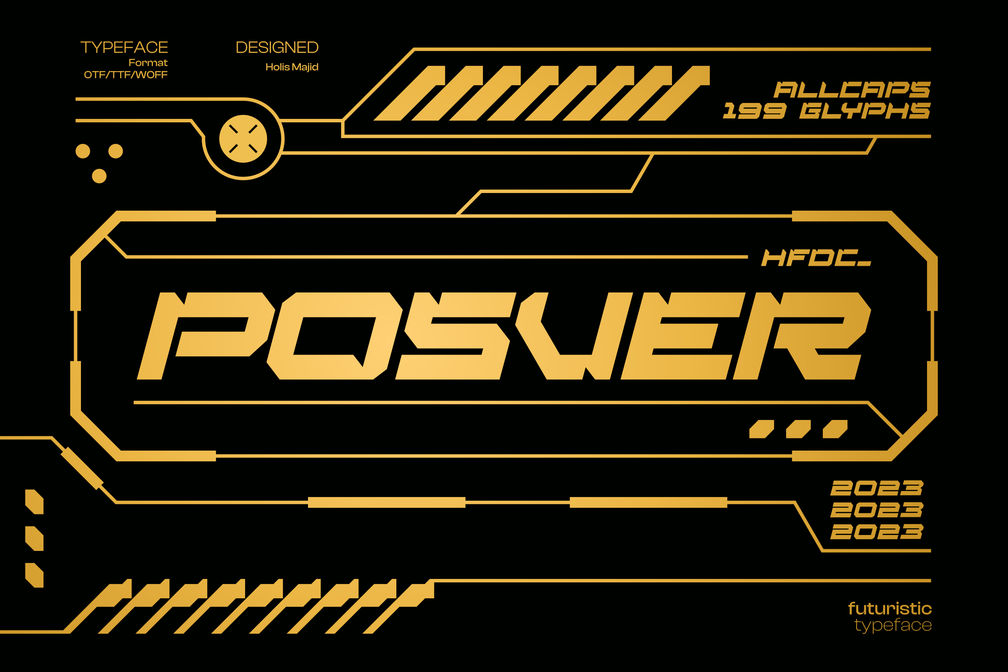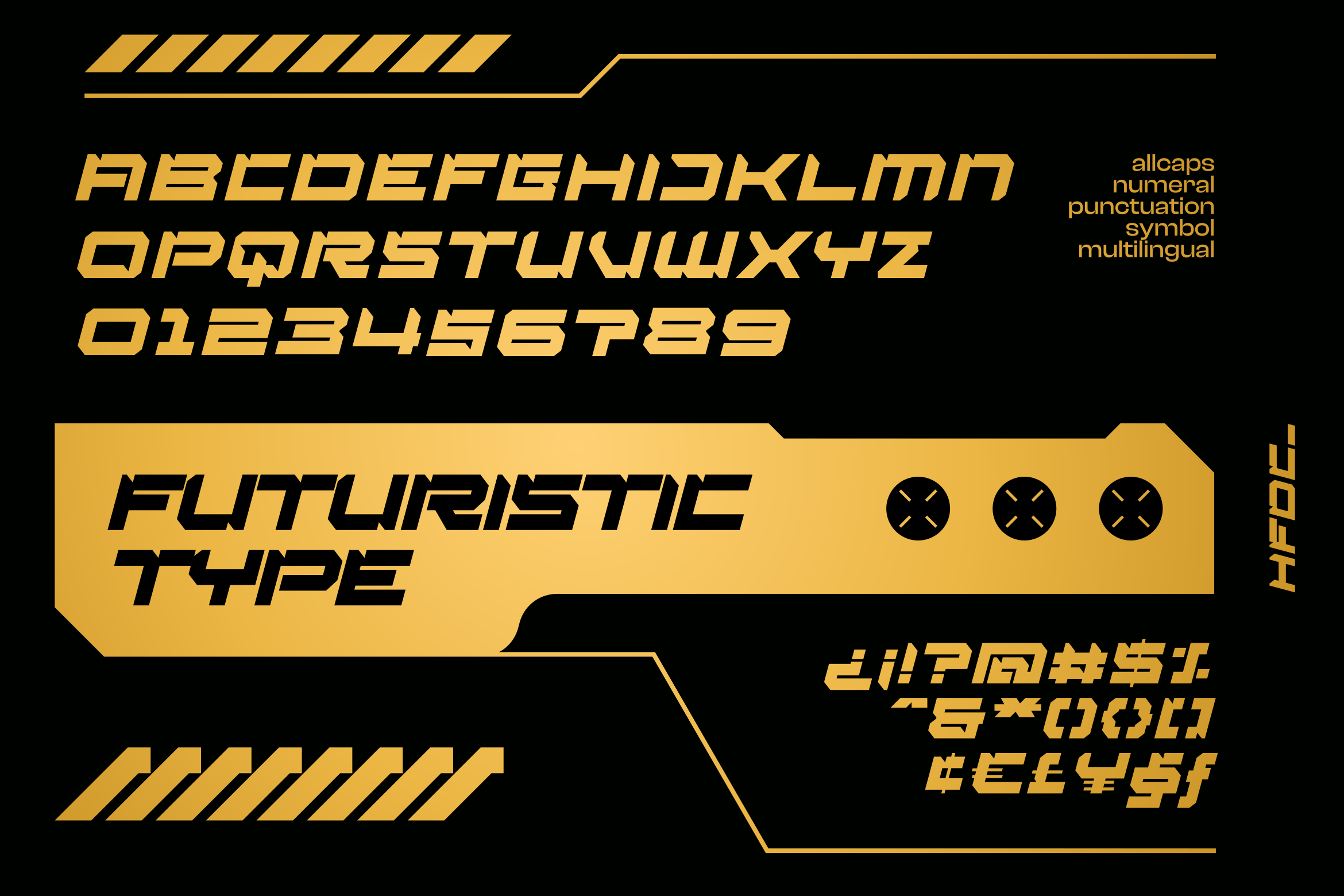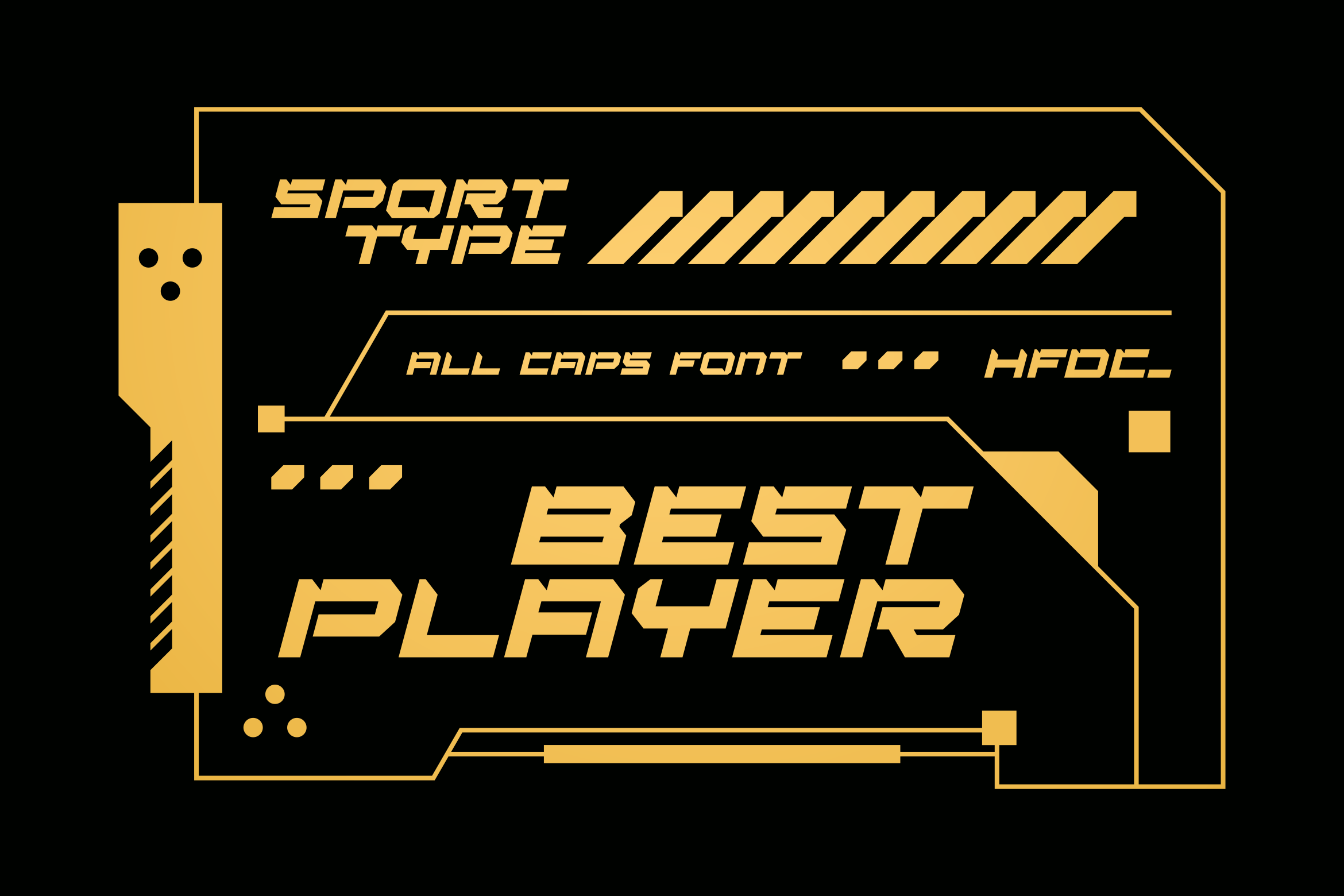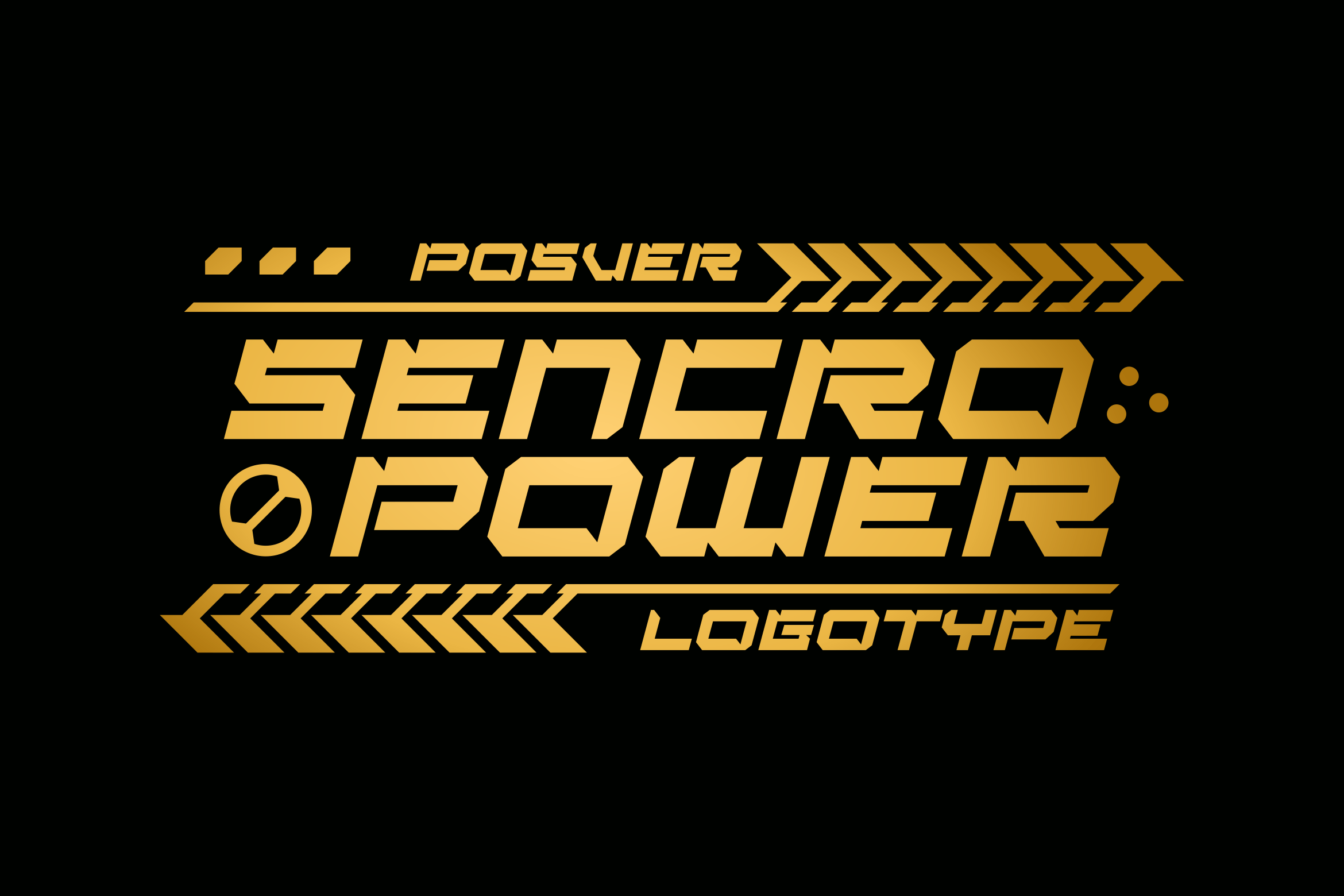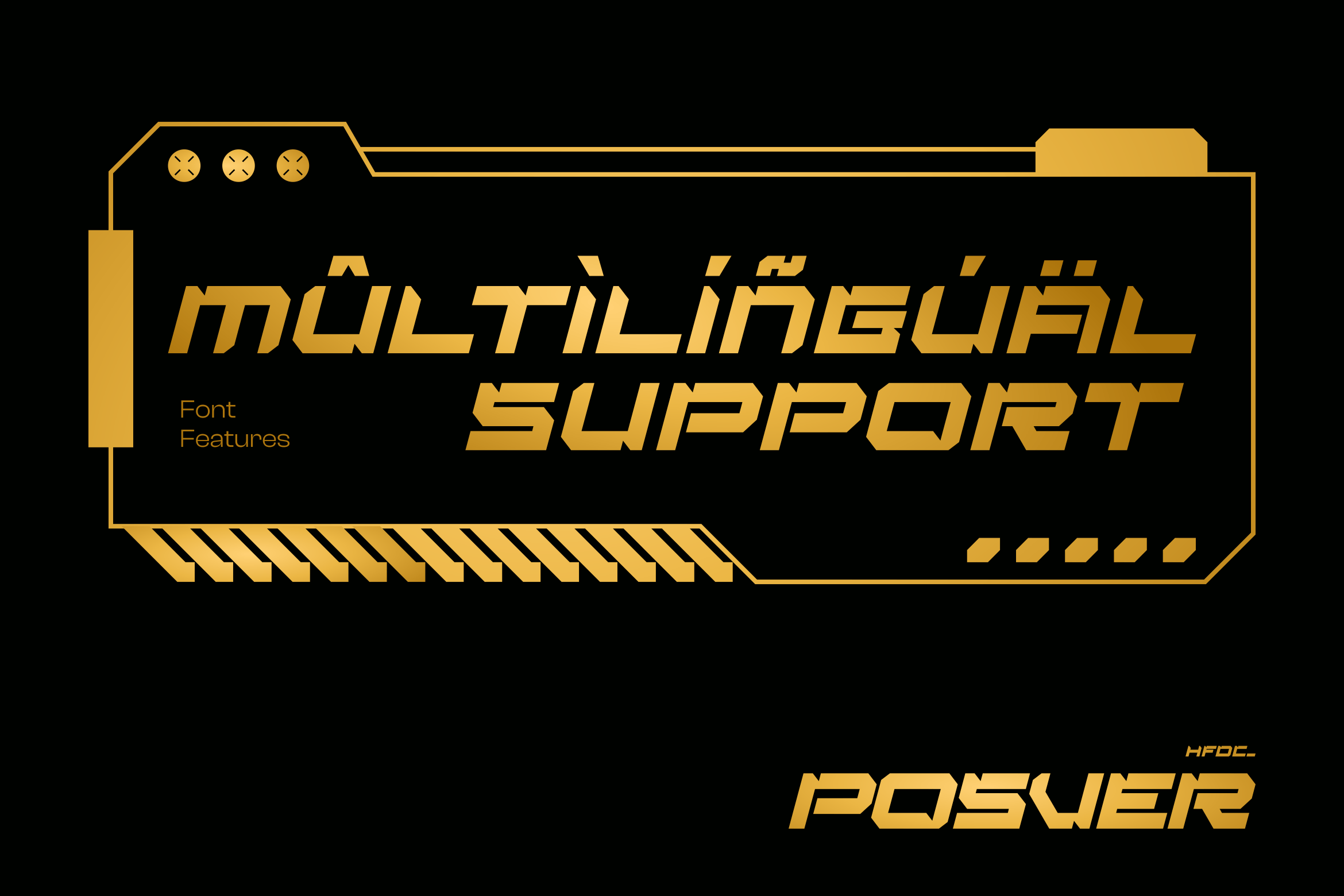
Posver Futuristic Sport Font
Fonts with a game sport style are bold and dynamic, designed to convey a sense of excitement and energy associated with sports and games. These fonts typically feature blocky, condensed letterforms that are easy to read and make a strong visual impact.
These fonts are often used in a variety of applications, from team logos and jerseys to event promotions and advertising materials. They can also be used in video games, mobile apps, and other digital media where a strong, sporty aesthetic is desired.
In terms of typography, fonts with a game sport style often feature condensed letterforms, thick strokes, and sharp angles, all of which contribute to a strong, dynamic appearance. Some fonts in this style also include decorative elements like stars, stripes, and athletic motifs, further enhancing their sporty look and feel.
Overall, fonts with a game sport style are a popular choice for any design project that requires a bold, dynamic, and energetic aesthetic.
• All caps
• Numeral
• Punctuation
• Symbol
• Multilingual